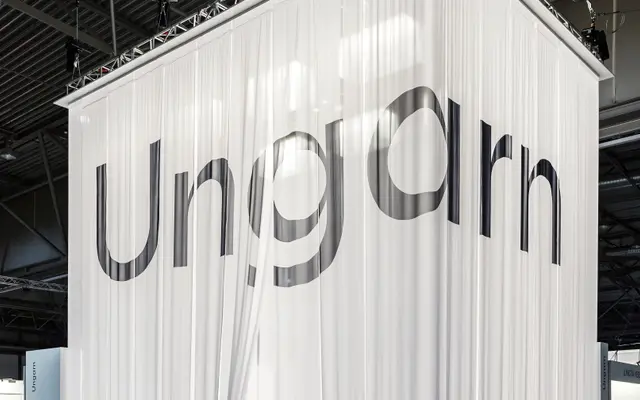
Mohol
Hungarumlaut · Adam Katyi · 2018
A pen-drawn high-contrast sans inspired by László Moholy-Nagy, built by holding a broad nib strictly horizontal and vertical to produce unusual stroke contrast across six weights.
Adam Katyi developed Mohol for the László Moholy-Nagy Design Grant in 2016, completing it for release in late 2018. The concept stems from a single question: how to draw a mono-linear sans with a classical broad nib pen, answered by restricting all strokes to strictly vertical or horizontal pen angles. The result is a sans with an unexpected rhythm of contrast that nods to Bauhaus constructivism without directly imitating it, available in twelve styles across six weights with matching slanted cuts.
Described explicitly as a high-contrast sans serif; the contrast derives from drawing strokes with a broad nib held strictly vertical or horizontal, producing an unusual pen-influenced stress in an otherwise sans letterform.